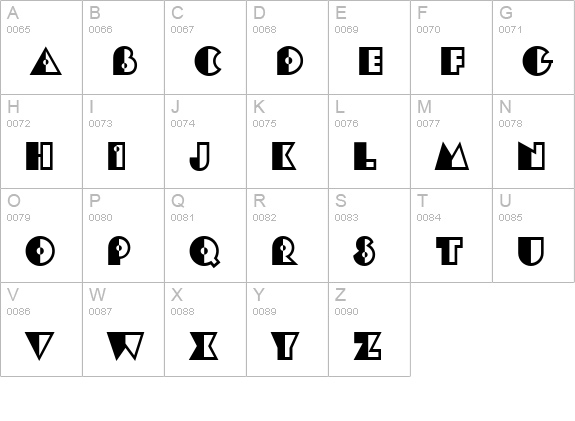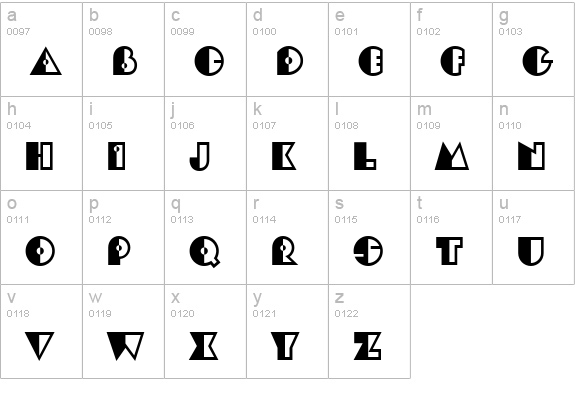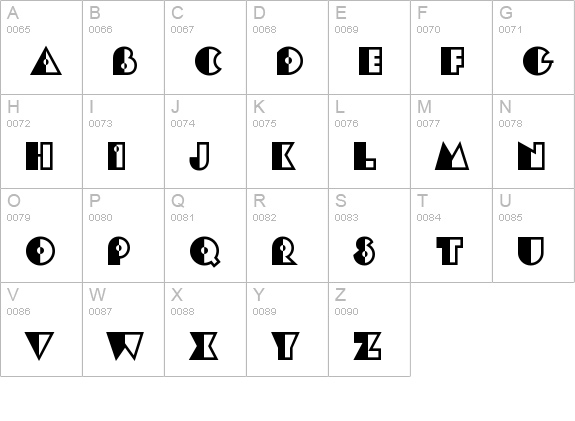
CgEclipse Font Details
CgEclipse font is a sleek and modern typeface that exudes sophistication and style. With its clean lines and elegant curves, this font is perfect for a wide range of design projects, from branding to editorial design. The versatility of CgEclipse font makes it a great choice for both digital and print applications. What sets CgEclipse font apart is not only its striking appearance, but also the fact that it is completely free to download. Yes, you read that right - this high-quality font is freely available to download at FontsMarket.com. Whether you're a professional designer looking to add a new font to your collection or a hobbyist creating personal projects, CgEclipse font is a fantastic choice that won't cost you a penny. Say goodbye to expensive font licenses and hello to CgEclipse font - the stylish and free font that will elevate your designs to the next level. Download it today and see the difference it can make in your projects!